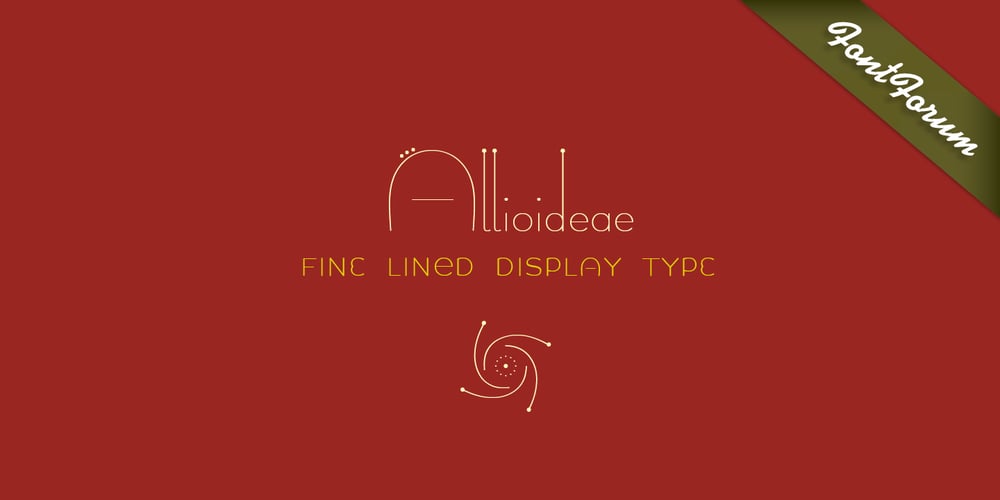
Allioideae
Allioideae font
Allioideae Font Family was designed by Anita Jürgeleit and published by URW Type Foundry. Allioideae contains 4 styles and family package options. This fine lined display type face was named Allioideae because of the ascenders of the lower cases. They are rising upright with a single stroke and are ending – depending on the font style – into a spherical blossom. The name was chosen concerned to the plant allium, that forms an umbel at the top of a leafless stalk, when it is blooming. Allioideae is the name of a subfamily of monocot flowering plants in the family Amaryllidaceae. The name is derived from the generic name of the type genus, Allium. The wide and round capital letters are showing a nice contrast to the lower cases and giving the font a kind of female feeling. That provides a functional and lovely use in headlines for all beauty and cosmetics issues.The typeface appears in 4 different styles. a plain style – Allioideae, a stencil style – Allioideae Stencil, a (dotted) style for both – Allioideae Dot and Allioideae Stencil Dot. It supports multi language as it covers all the latin diacritics and a cyrillic character set. Lots of numbers as monospaced, lining figuers, old styles, sub- and superscript and many fractions in two different styles are giving a nice finish to that font. Also some matching ornaments are included.